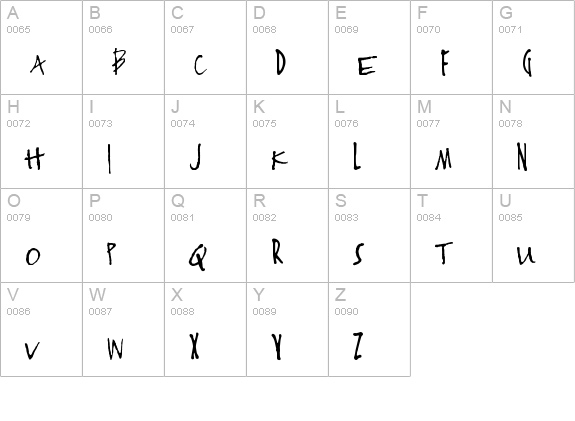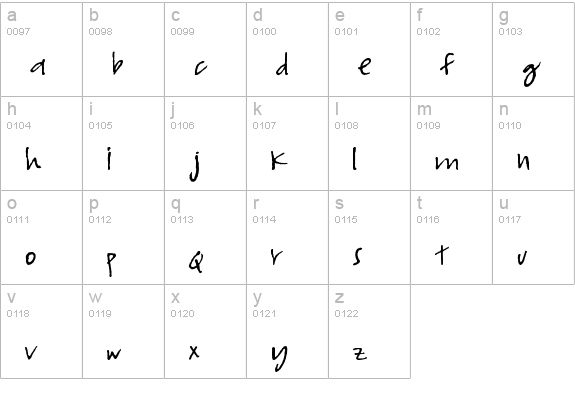
I Love Derwin Font Details
Introducing the captivating I Love Derwin font, a stunning typeface that will leave you breathless with its elegant curves and stylish letterforms. This font effortlessly combines modern sophistication with a touch of playful charm, making it the perfect choice for a wide range of creative projects. I Love Derwin font is designed with meticulous attention to detail, ensuring each character is crafted to perfection. Its gracefully flowing lines and unique letter shapes create a sense of harmony and balance, making every word written with this font a true work of art. But what makes I Love Derwin font truly special is that it is absolutely free. Yes, you heard it right! This incredible font is freely available to download at FontsMarket.com. Now you can add a touch of class and creativity to your designs without breaking the bank. Whether you're designing a logo, creating eye-catching headlines, or adding a personal touch to your invitations, I Love Derwin font will effortlessly elevate your projects to new heights. Its versatility allows it to adapt to various design styles, from modern and minimalistic to retro and vintage. The extensive character set of I Love Derwin font includes uppercase and lowercase letters, numerals, punctuation marks, and special characters, giving you all the tools you need to bring your creative vision to life. With its legibility and readability, this font ensures that your message will be conveyed effectively, while still captivating your audience. So go ahead and unleash your creativity with the remarkable I Love Derwin font. Download it for free today at FontsMarket.com and start turning your design dreams into reality. Experience the joy of working with a font that combines style, elegance, and affordability in one beautiful package.